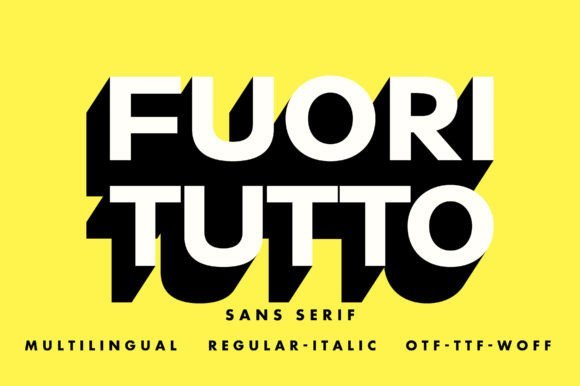
Redefining Modern Typography: Fuori Tutto Font Font
Have you ever stared at a blank page, struggling to find the perfect font to bring your design to life? That’s a feeling many creatives can relate to. But what if you could simplify the process and elevate your designs with a single, powerful tool?
Enter Fuori Tutto Font Font – a minimalist sans serif typeface designed to effortlessly embody the essence of clean lines and geometric precision. Crafted for the contemporary creator, this typeface is a testament to the art of simplicity, breathing life into your projects with its distinct modern flair. Whether you’re a seasoned designer or just starting out, Fuori Tutto Font Font is a valuable addition to your toolkit, guaranteeing that your message takes center stage, free from distractions.
- Unique Characteristics: Fuori Tutto Font Font features a unique, playful design with a mix of rounded and geometric shapes, making it suitable for creative and modern designs.
Fuori Tutto Font Font Review
Overall, I’m quite impressed with Fuori Tutto Font Font. It’s a versatile font that works well in a variety of contexts. ✨ Here are some of its strengths:
- Unique and creative design: Fuori Tutto Font Font has a distinctive look that sets it apart from other fonts.
- Highly legible: The font is clear and easy to read, even at smaller sizes.
- Supports multiple languages: Fuori Tutto Font Font is a great option for projects that require multilingual support.
- May not be suitable for formal or professional projects: Fuori Tutto Font Font has a playful, creative vibe that may not be fitting for more formal contexts.
- May require additional styling: Depending on the project, you may need to add additional styling or formatting to make the font work effectively.
Overall, I’d say Fuori Tutto Font Font is a solid choice for designers looking for a creative, versatile font. It’s not perfect, but it’s definitely worth considering for the right project.
To get the most out of Fuori Tutto Font Font, experiment with different font sizes, colors, and combinations. This font style works well for creating eye-catching headings and titles.
Fuori Tutto Font Font is commonly used in graphic design, advertising, and marketing materials. It’s ideal for creating bold, attention-grabbing headlines and titles.